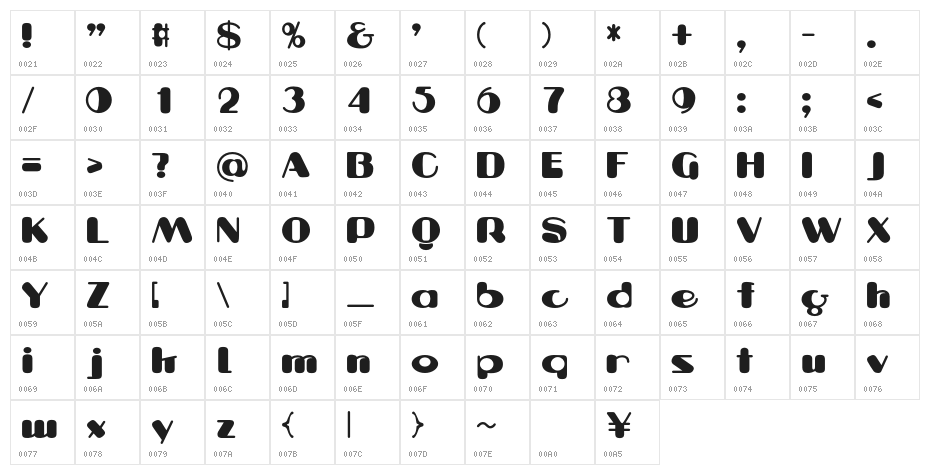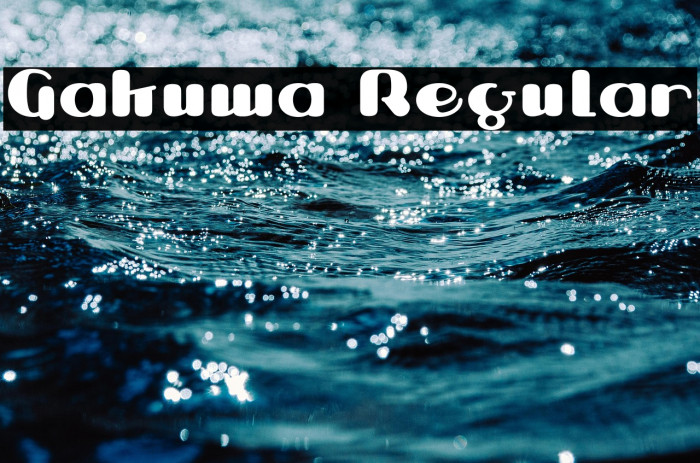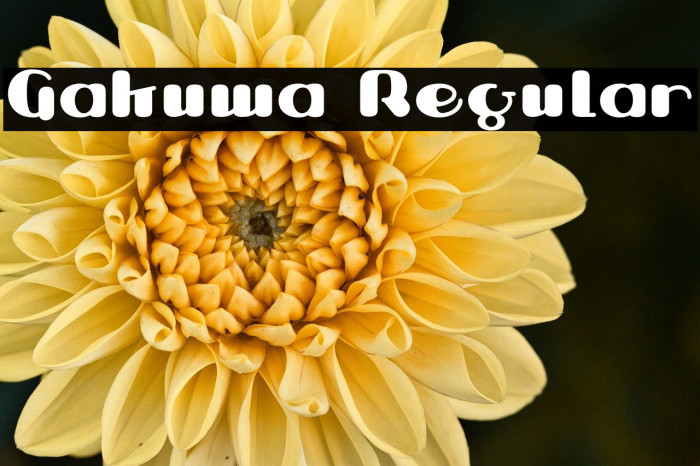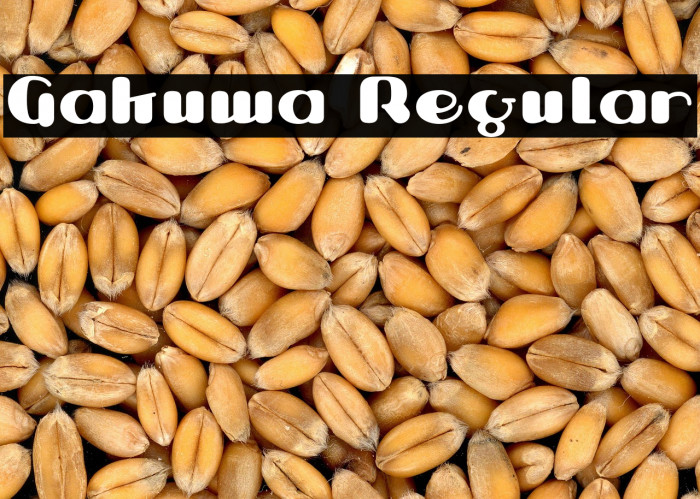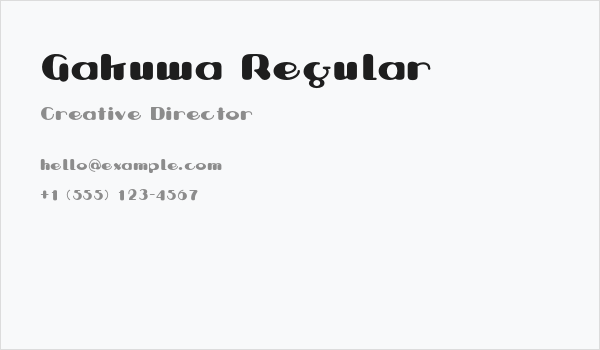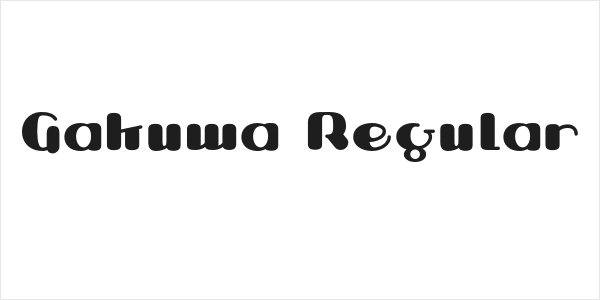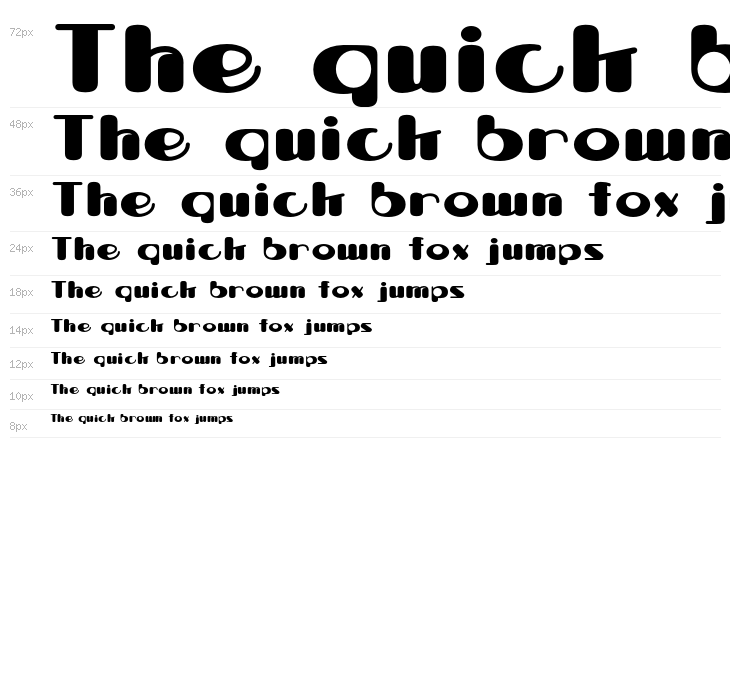
Gakuwa Regular Font
Gakuwa Regular Description
This font features a bold and playful design with a unique blend of geometric and organic shapes. The characters are rounded with some angular cuts, creating a dynamic and eye-catching appearance. The uppercase letters are particularly striking, with a strong presence and distinctive style. The lowercase letters maintain the playful aesthetic, with consistent stroke widths and smooth curves. Numbers and special characters follow the same design principles, ensuring a cohesive look across all elements. This font's boldness and unique character make it suitable for creative and modern design projects.
| Proposed Projects | This font is perfect for branding, posters, headlines, and any project that requires a bold and modern aesthetic. |